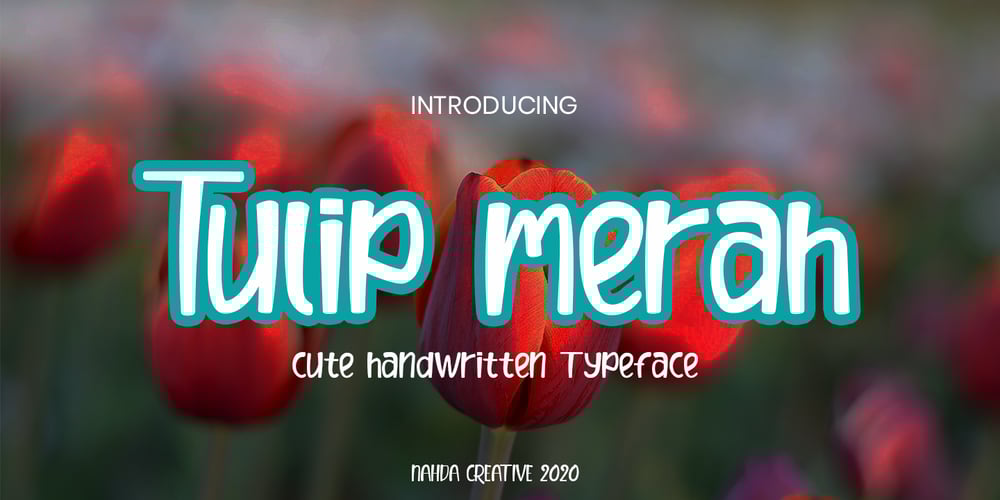
Tulip merah Font Family was designed by Nahda Rajman and published by Nahda Creative. Tulip merah contains 1 styles and family package options. Tulip merah is a simple and natural handwritten font. This font Is perfect for any of your projects such as product packaging, product designs, label, Cartoon, books, watermark, special events or anything you can think of